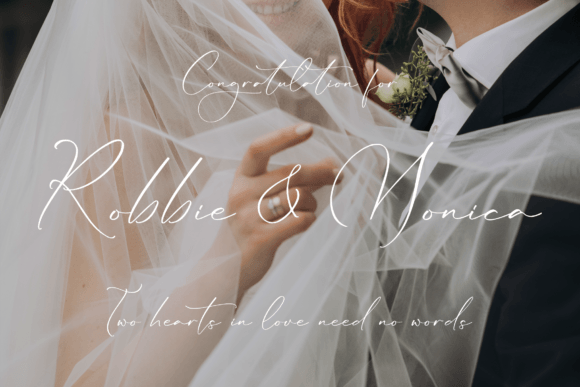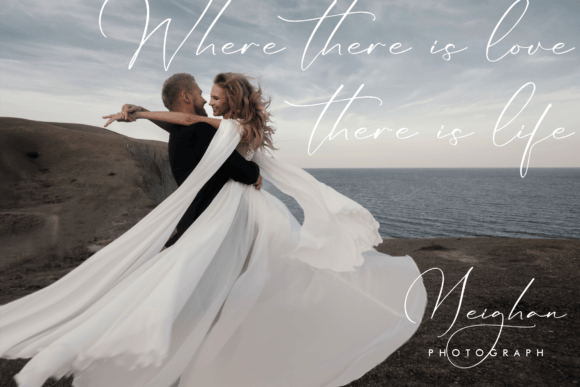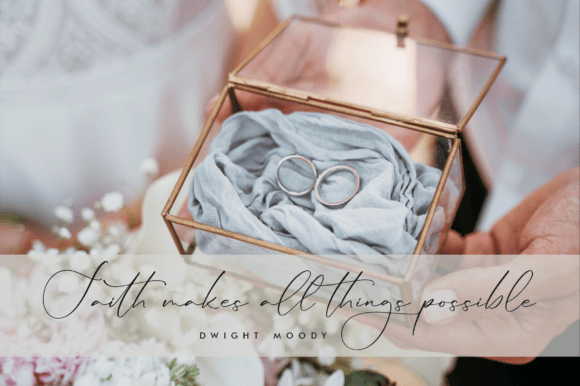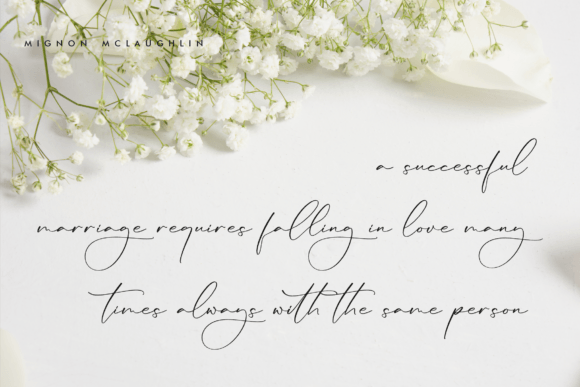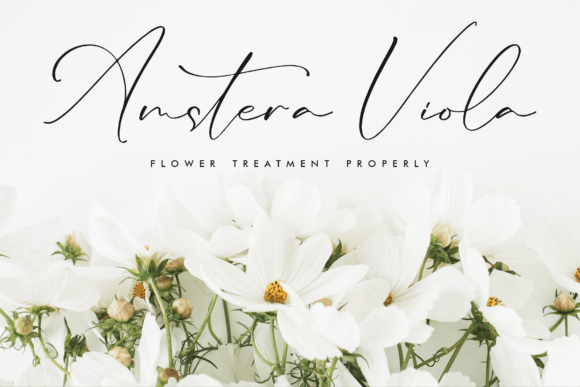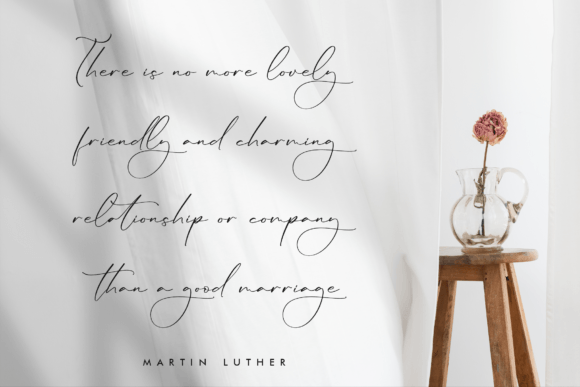
Introduction to Lillywhite Font
Lillywhite is a beautiful and luxurious script with a unique style & modern look.
This lovely typeface is perfect for an elegant & luxurious logo, book or movie title design, fashion brand, magazine, clothes, lettering, quotes, and so much more .
Key Features of Lillywhite Font
Why Choose Lillywhite Font?